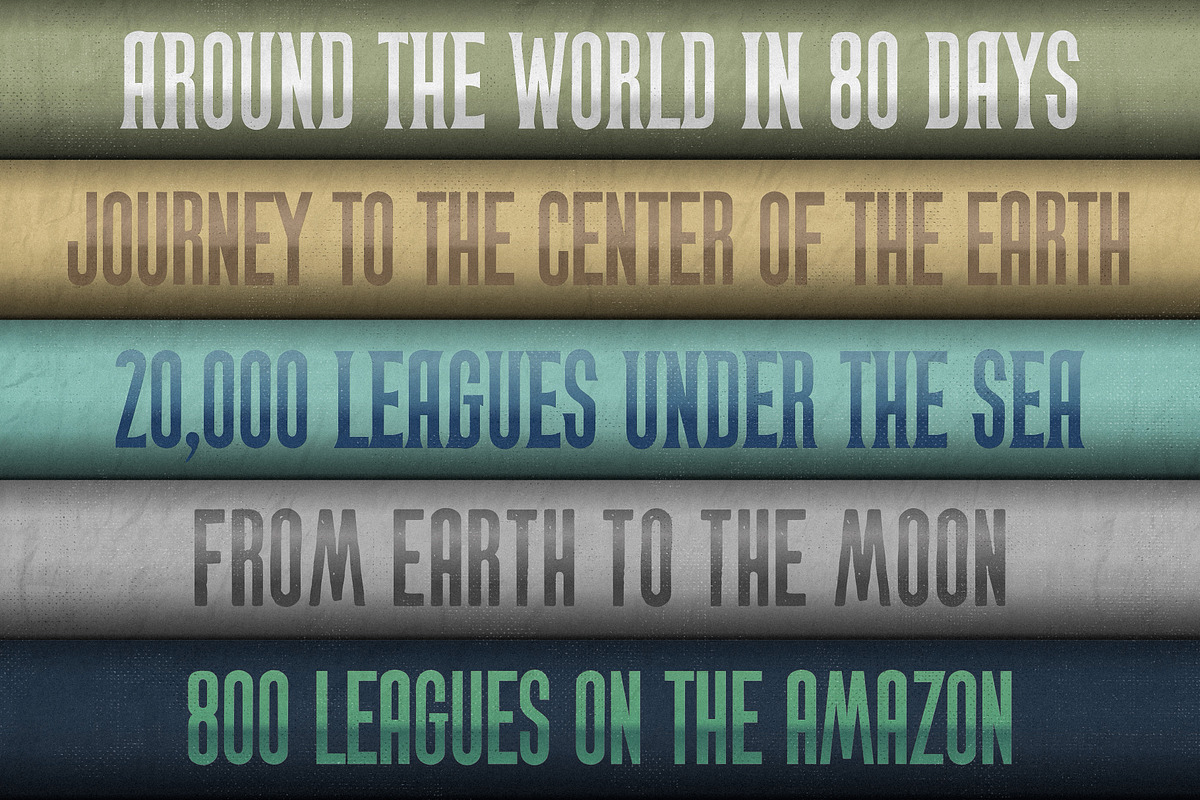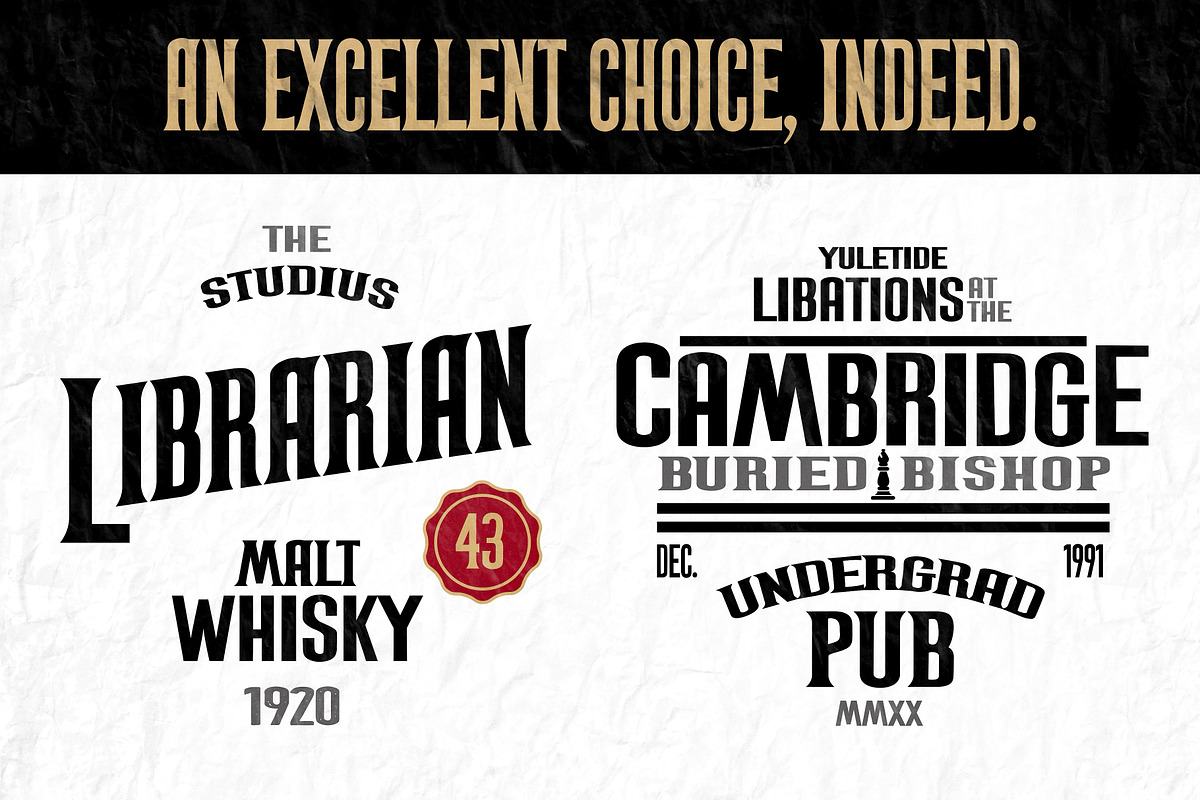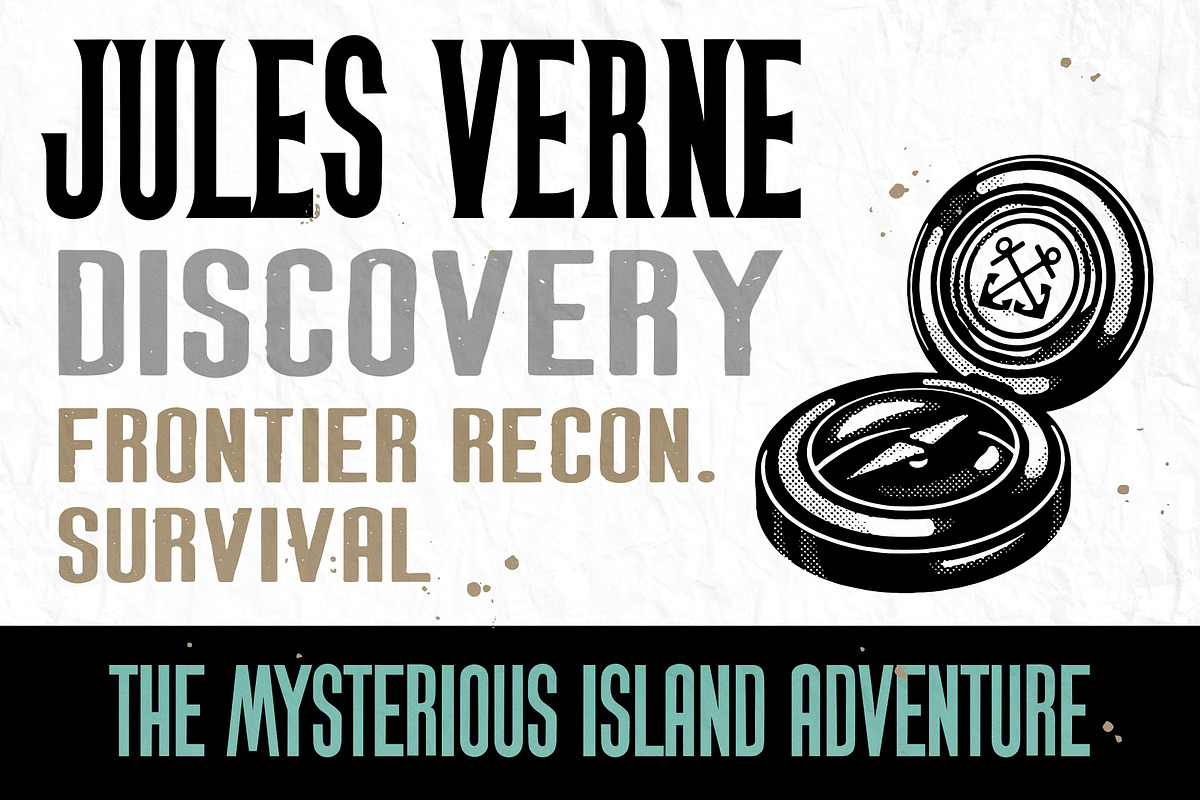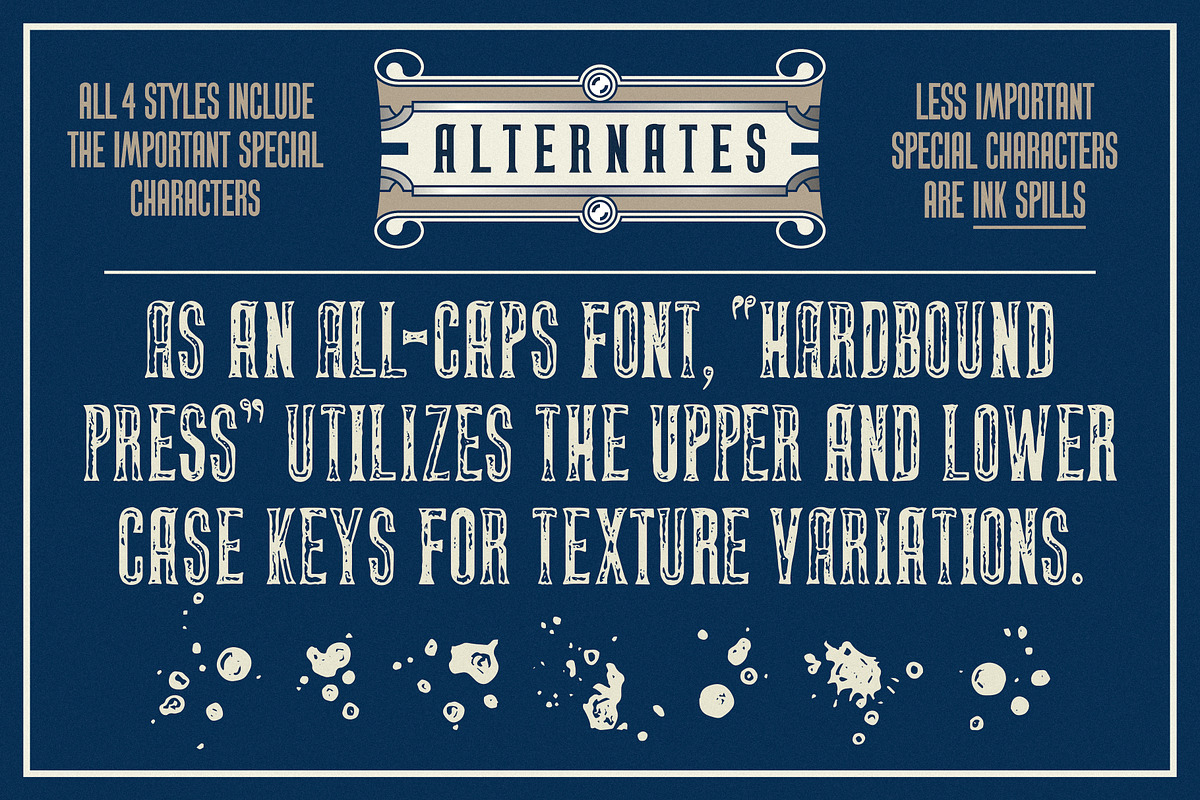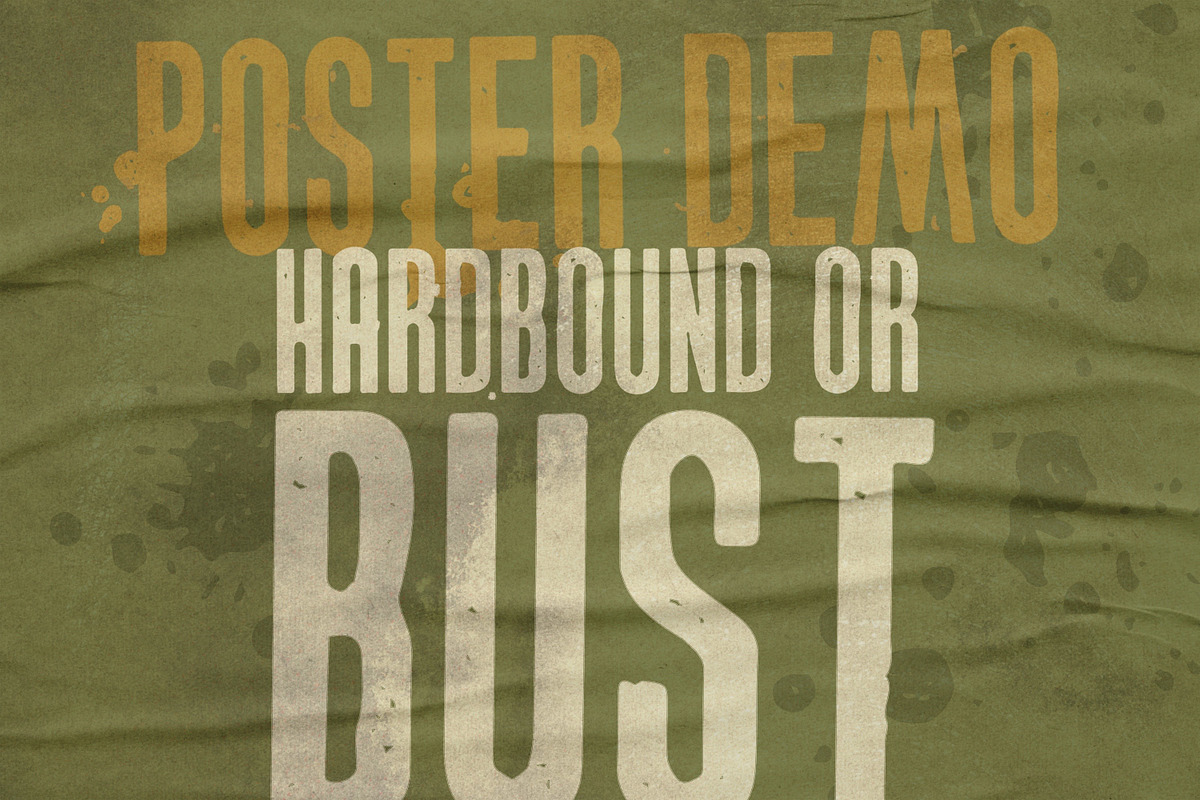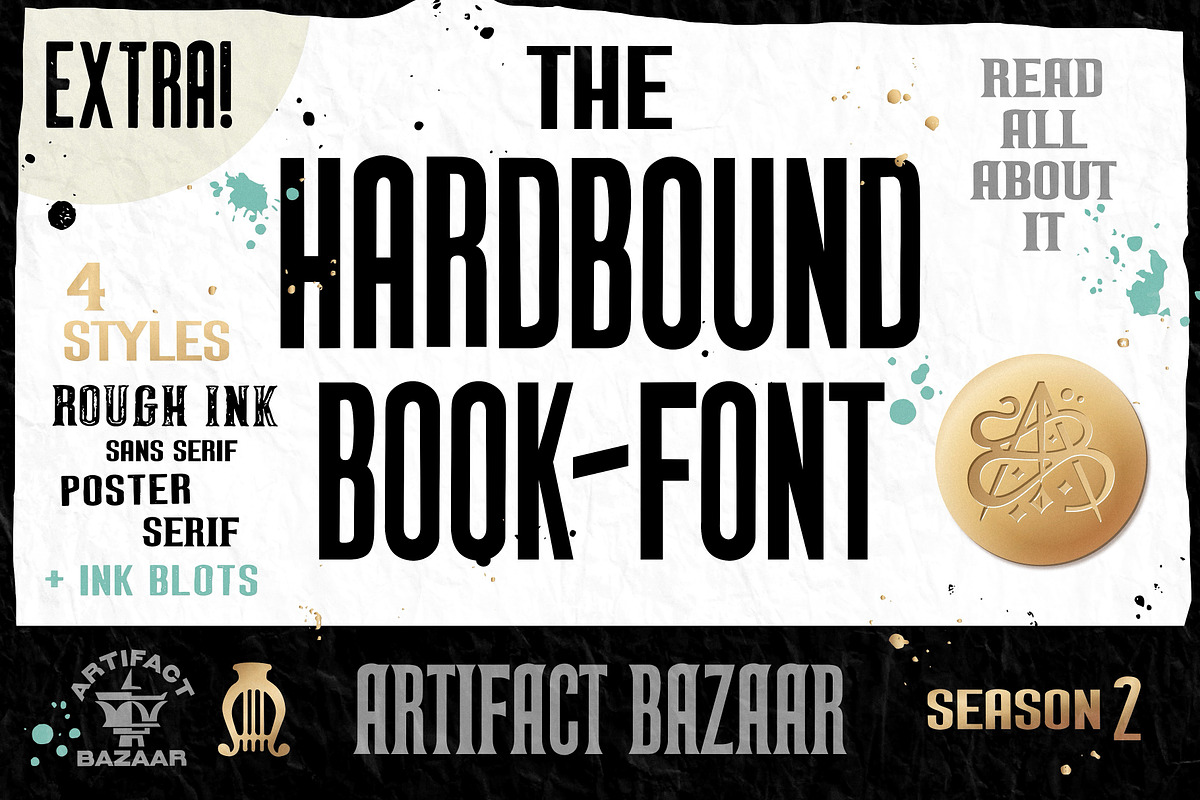
Hardbound | Tall Book Font
A condensed and pliable book-spine typeface, perfect for titles, bylines, headlines, billboards, badges, packaging, hero images and more. Classic, clean glyphs retro-fitted with an Art Deco sheen the likes of The Great Gatsby, The Rocketeer, and Spruce Goose age aviation. With 2 Rough alternates for vintage work.
A Season 2 Font
Extra Ink Spill Glyphs
Texture variations in the upper and lower case keystrokes
4 Styles
- Serif
- Sans Serif
- Poster
- Rough Textured Press